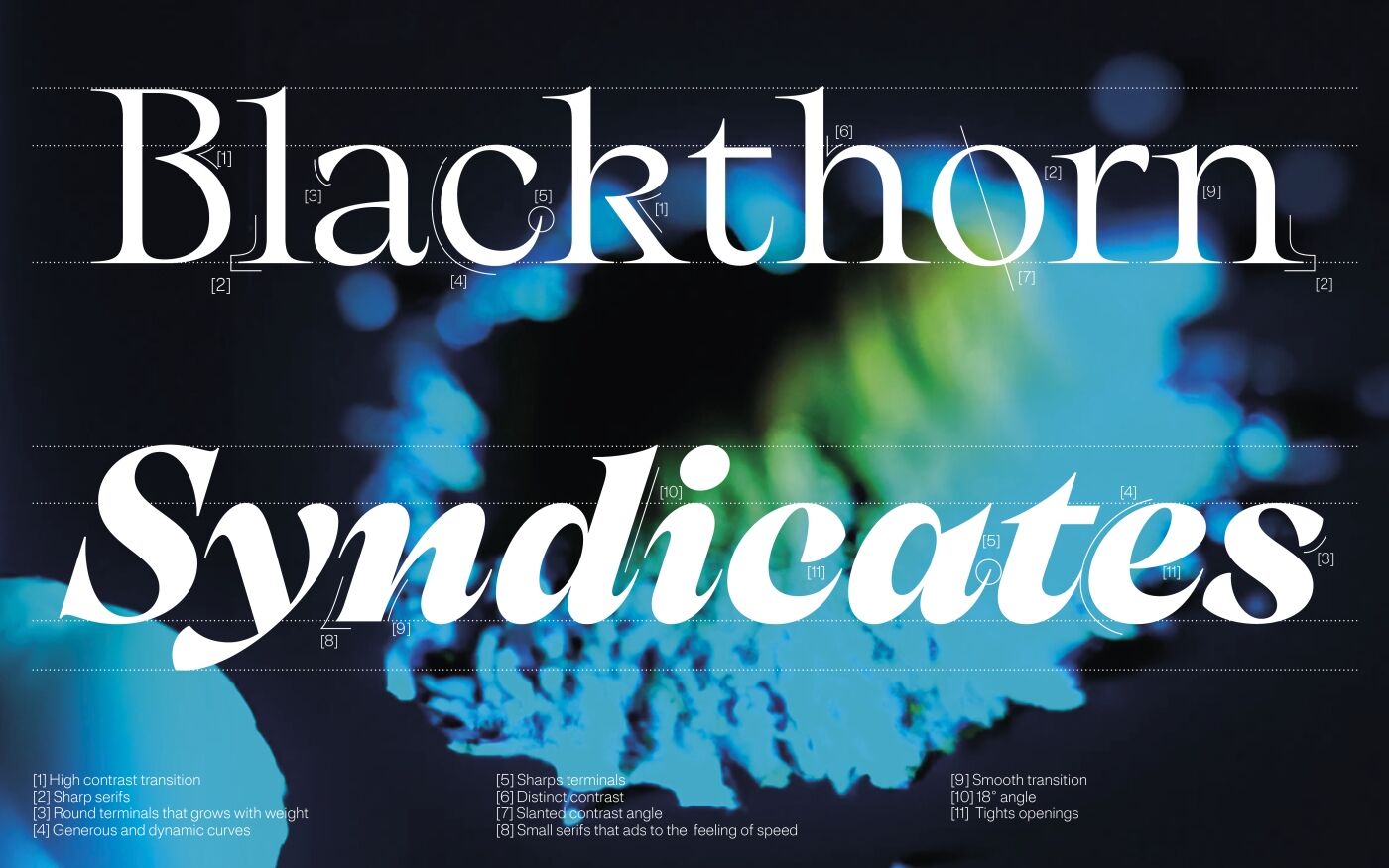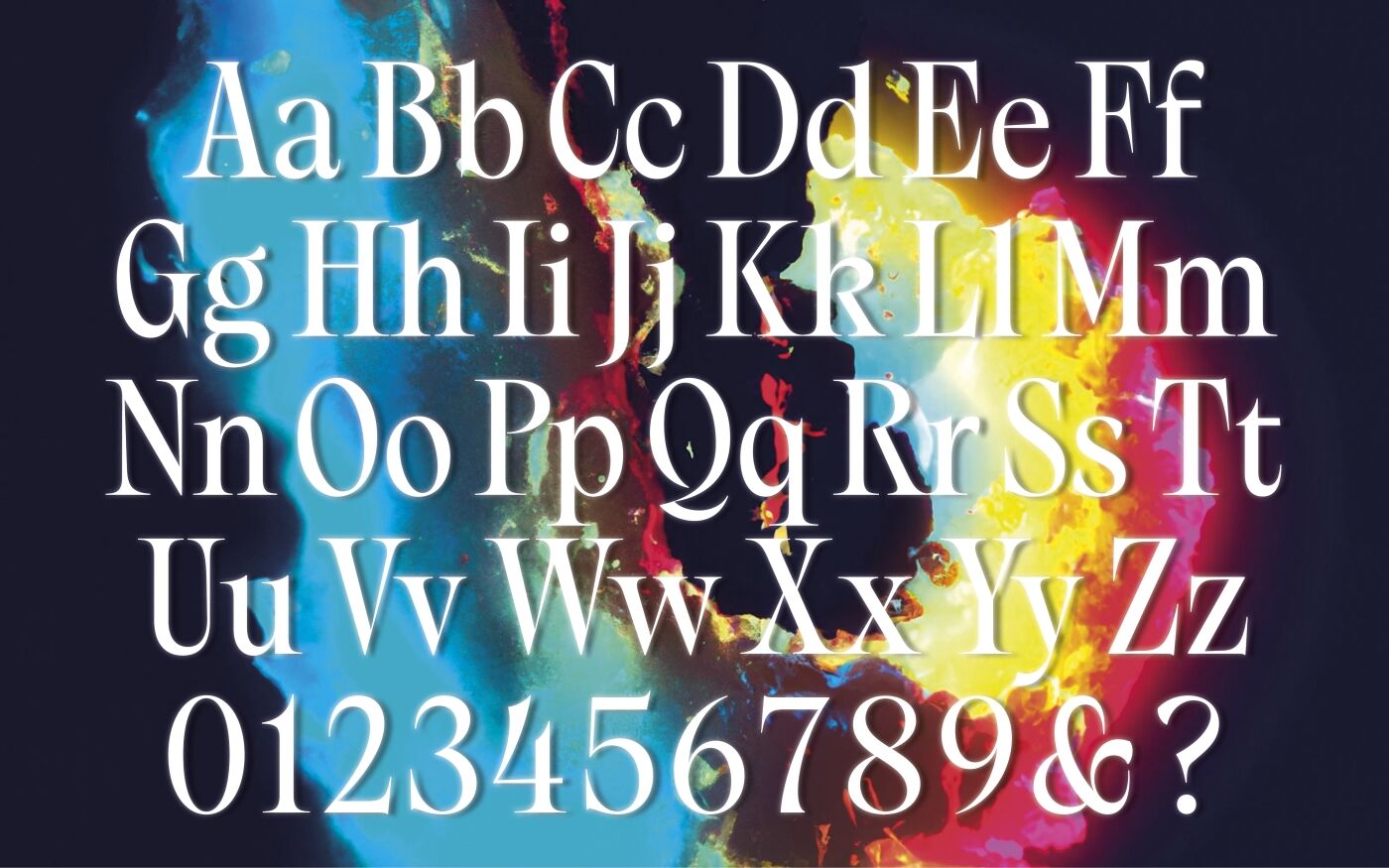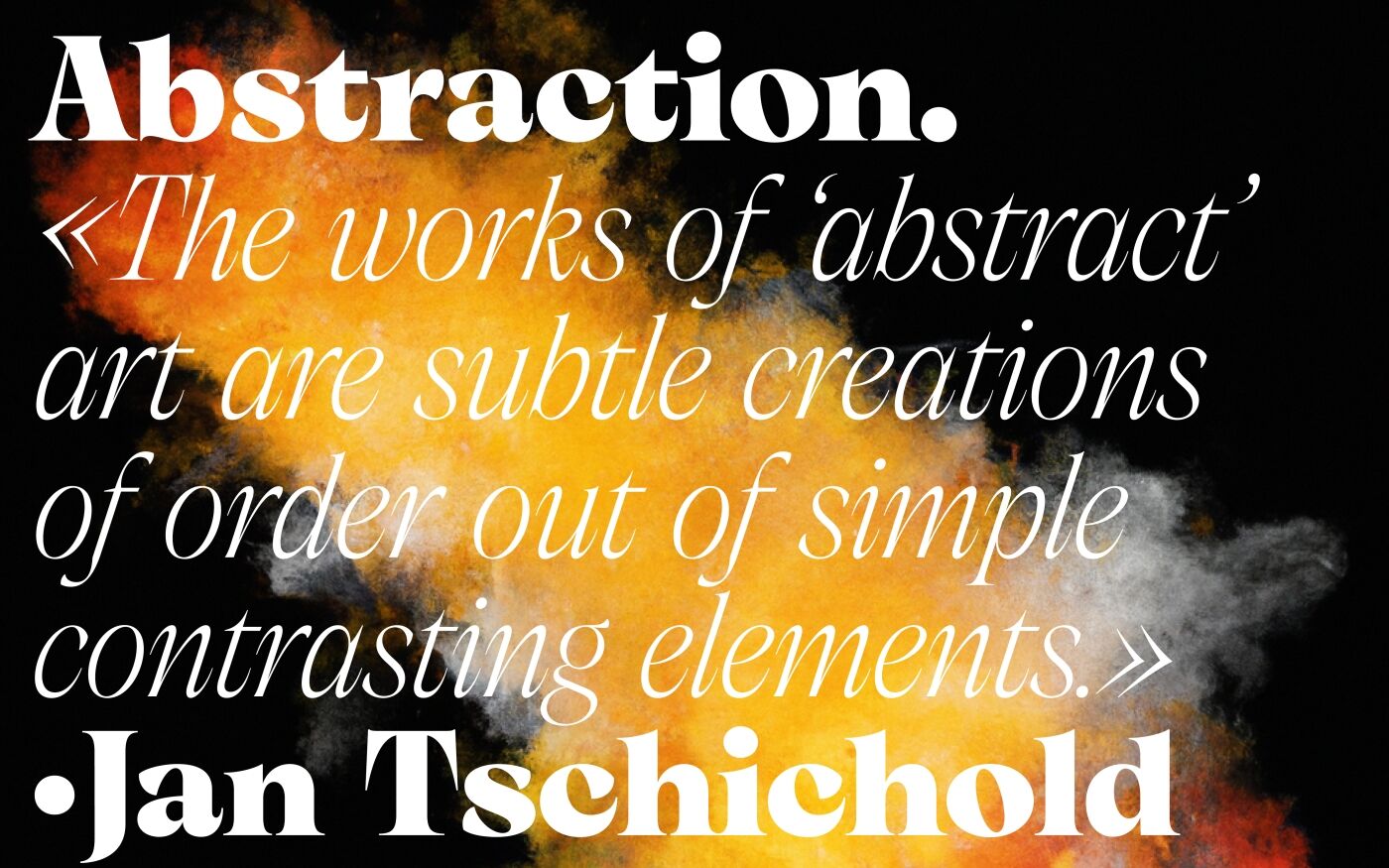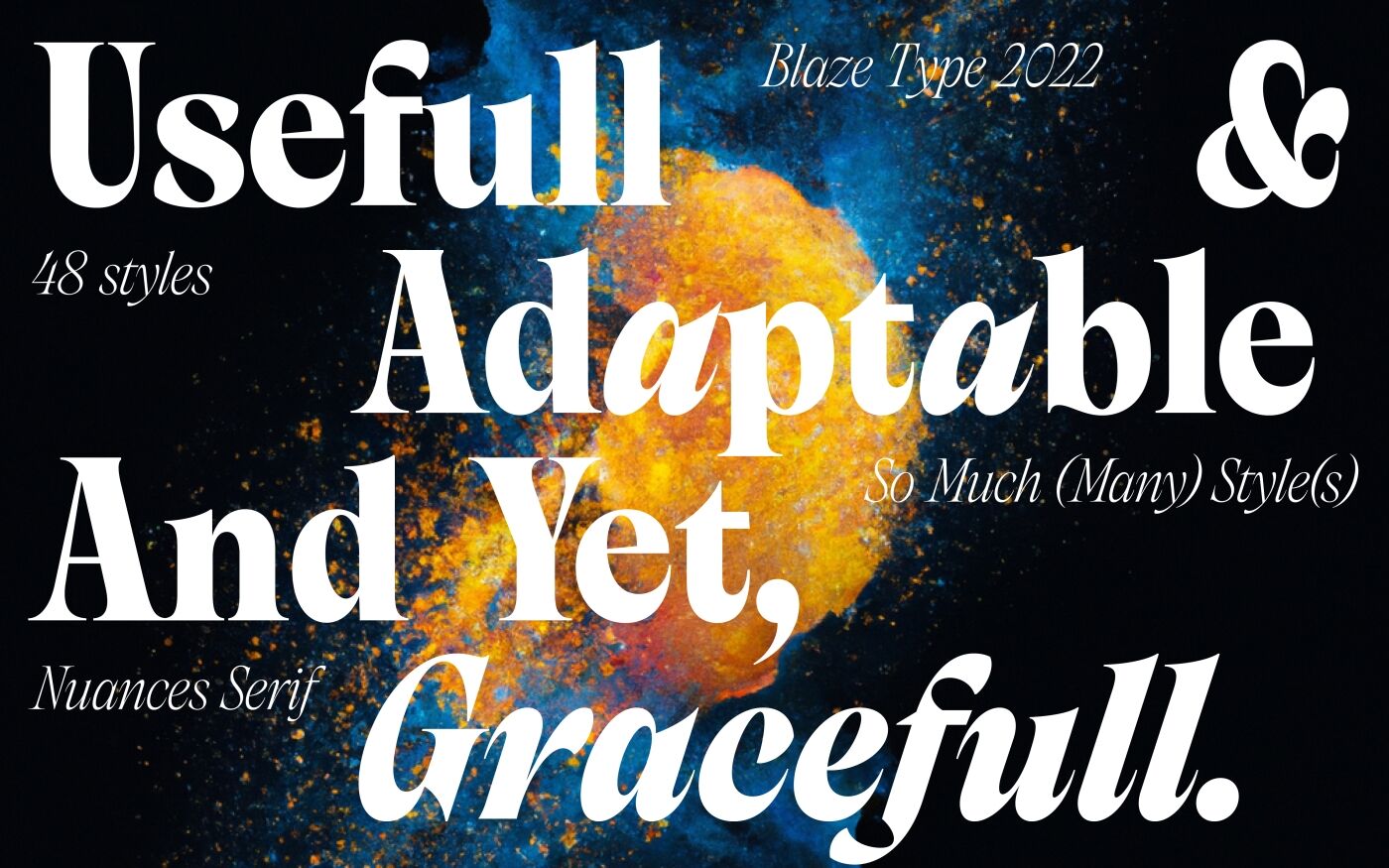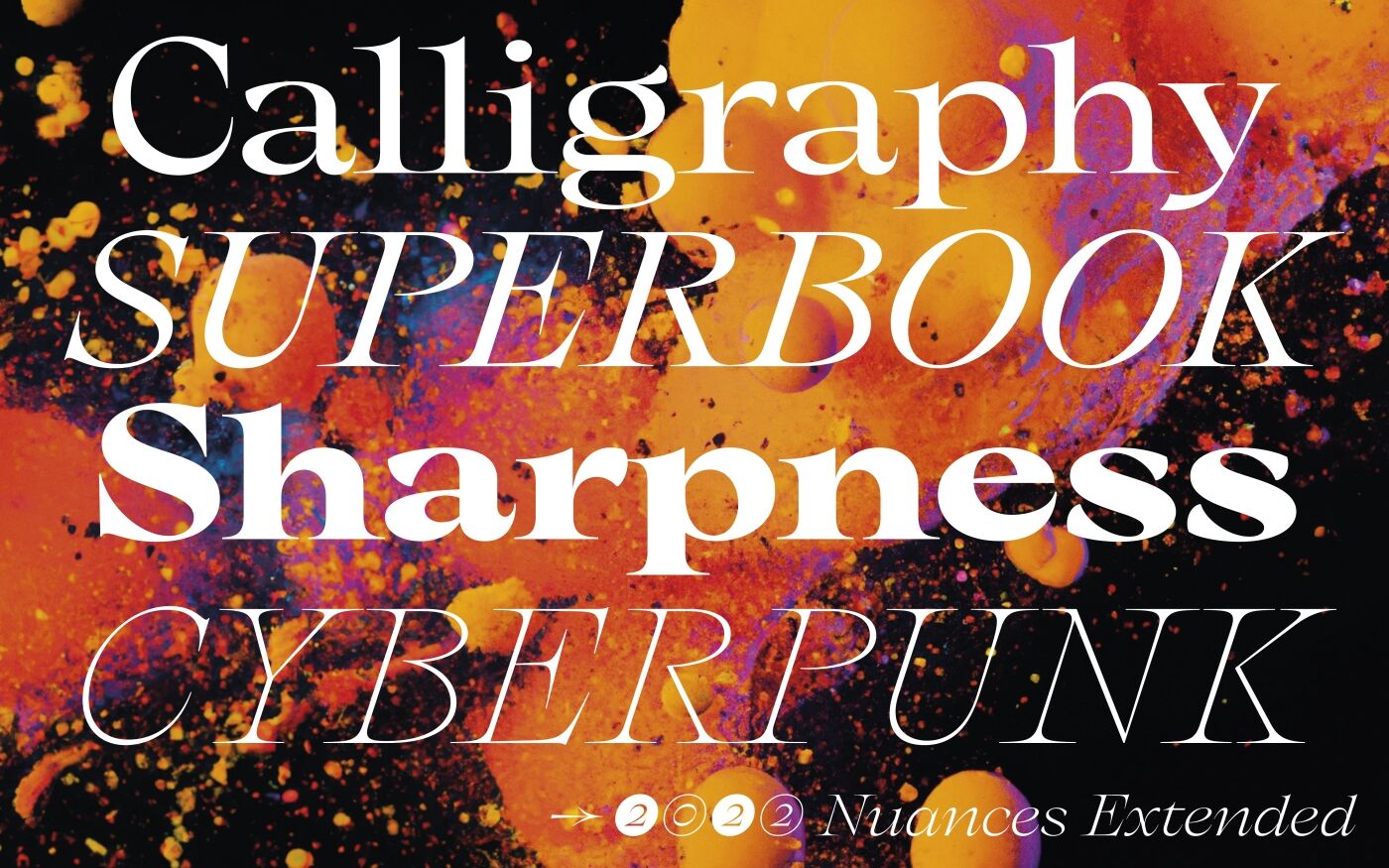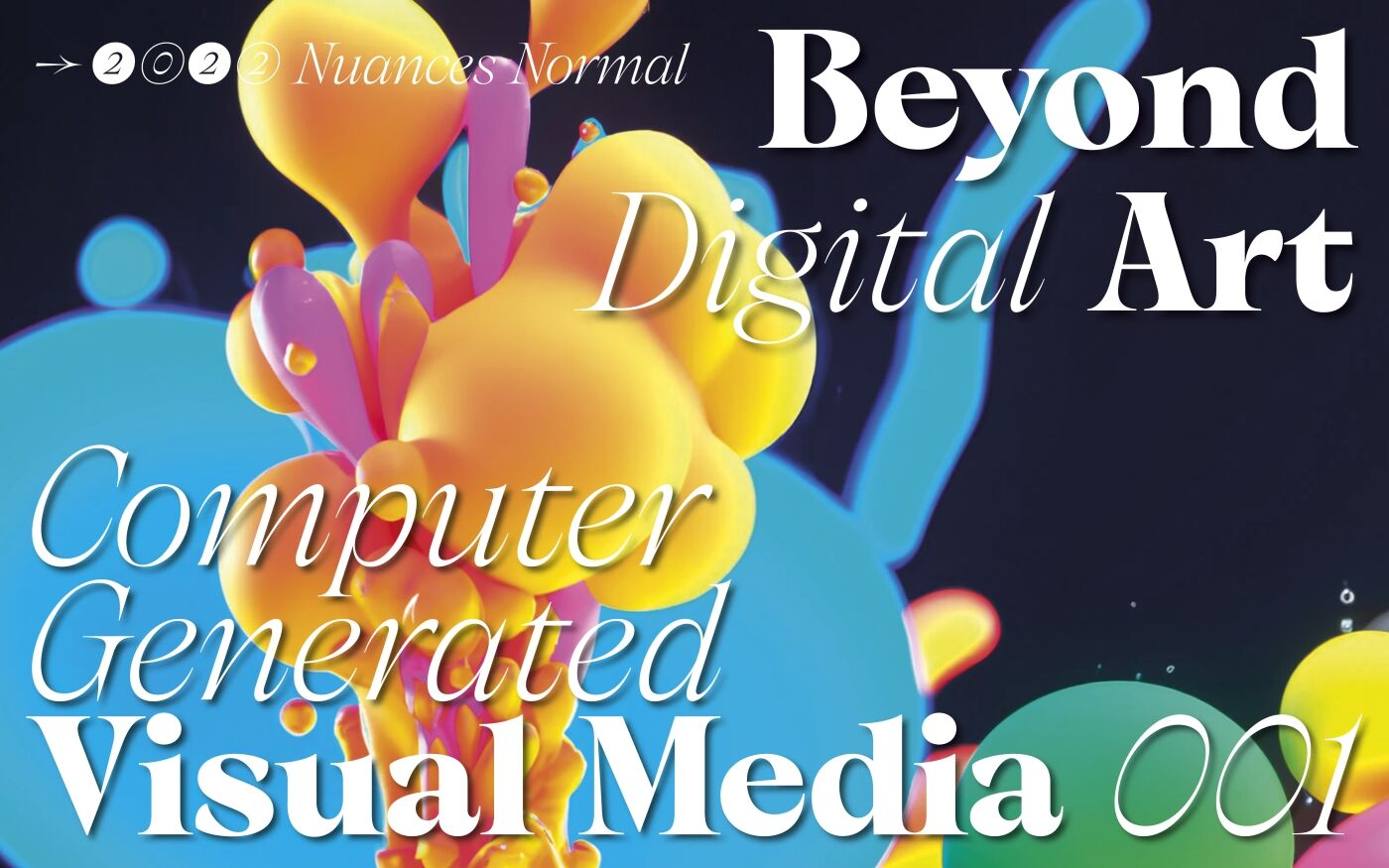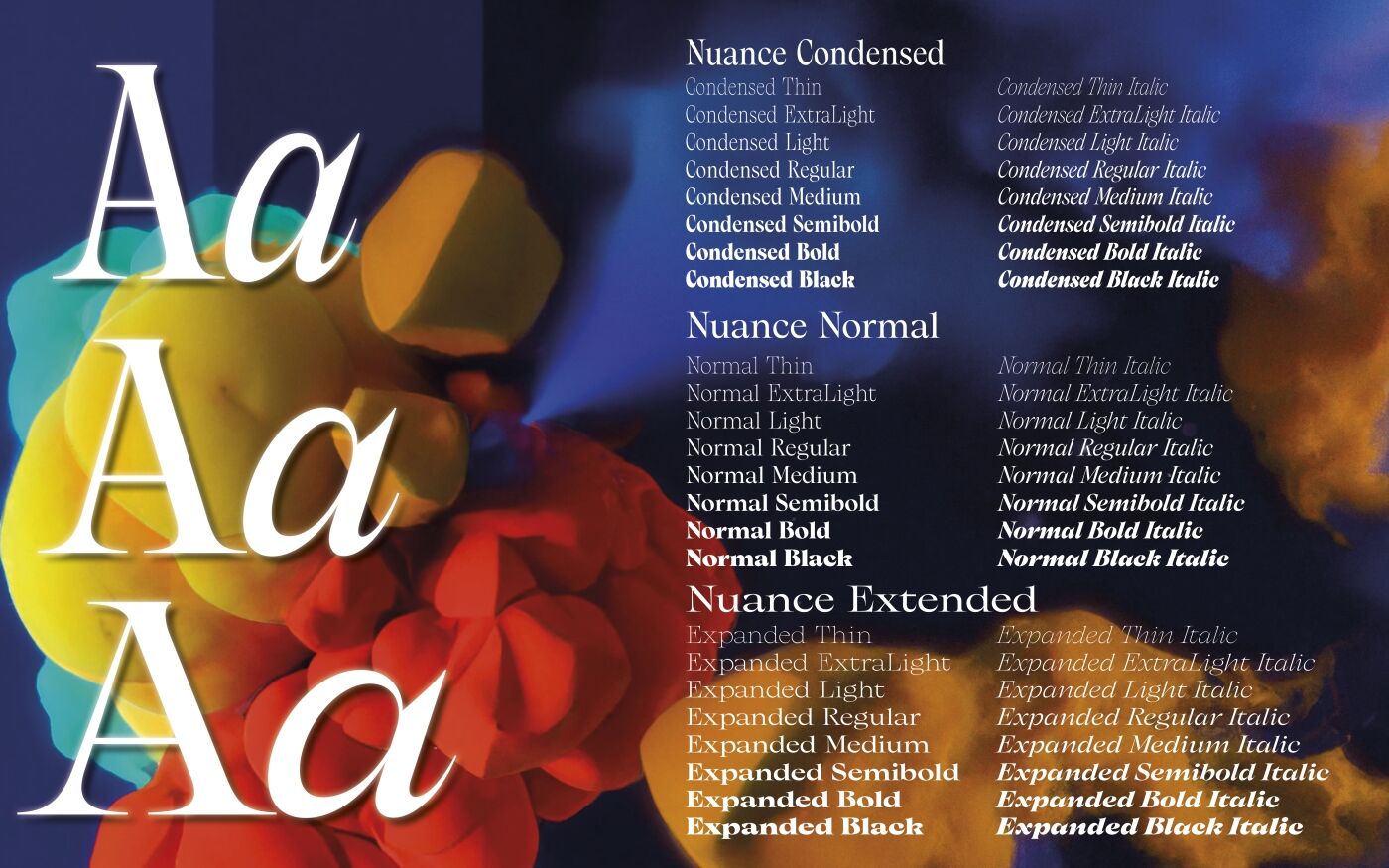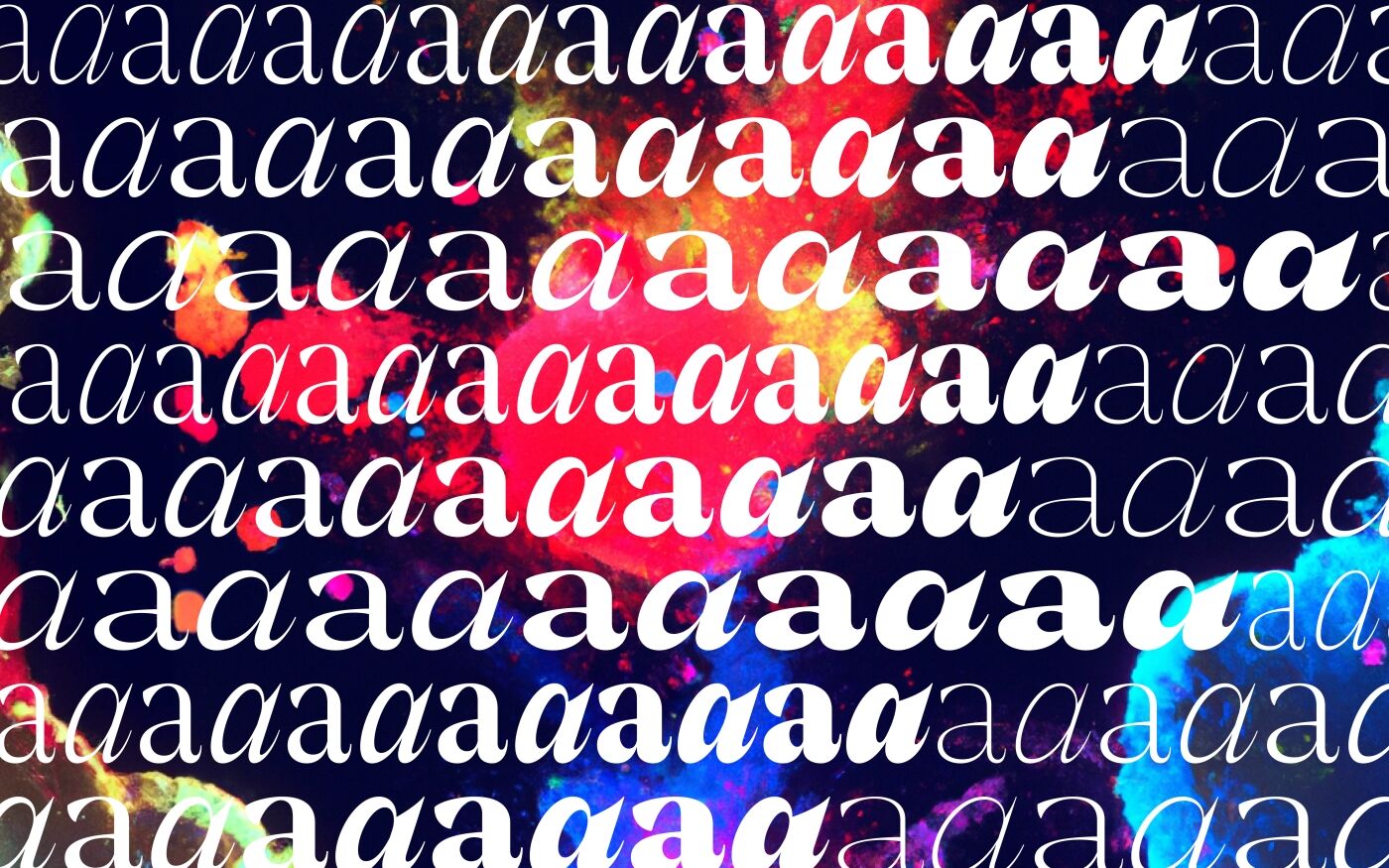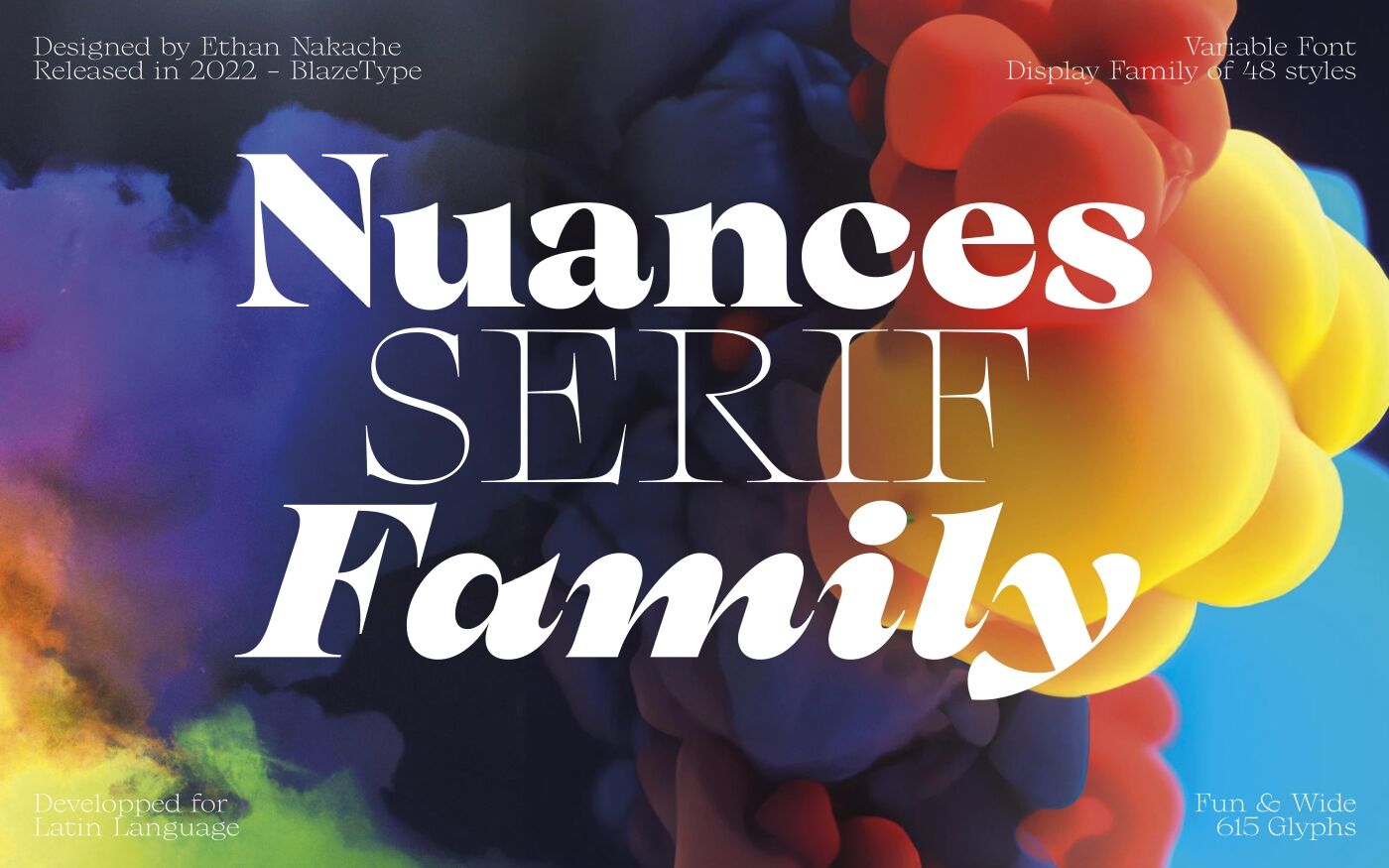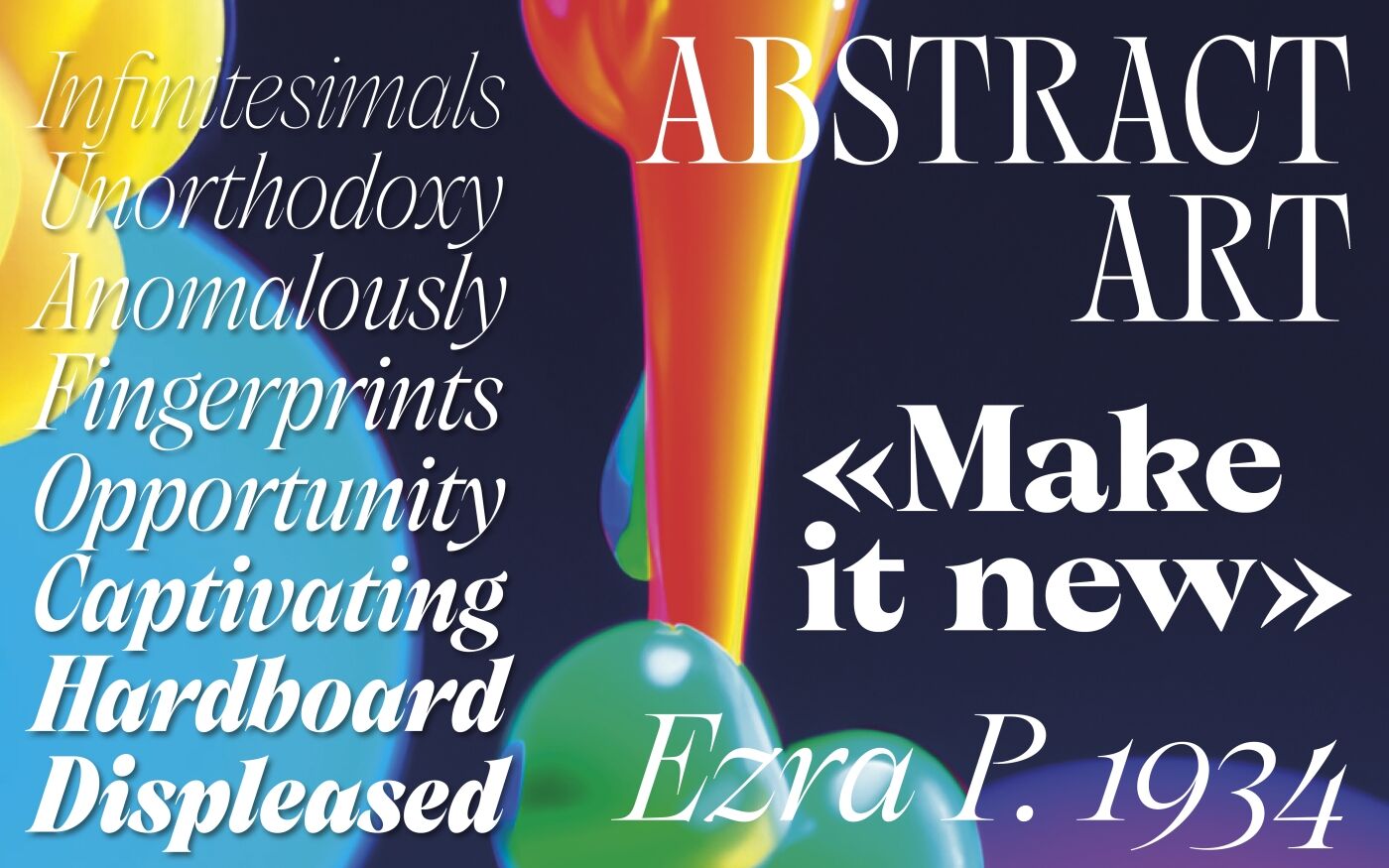
Nuances Typeface
Nuances Serif, distributed at Blaze Type is a very rich Serif family, with a highly expressive and resolutely modern design. Born from personal research on typographic design and aesthetic detail, Nuances Serif is a sharp serif font family with strong contrast and elegant curves. With a particular attention to the design of each glyph, this font family is meant to be used in large sizes. This expressive typeface is to be experienced, shown, read and seen through its elegant shapes, and its confident design.
Nuances Serif can also be appreciated for its playfulness due to its glyph diversity and large character set. Ranging from Condensed Thin to Extended Black, this font family is available in 3 Widths and 8 Weights with matching Italics. The wide range of its styles (48) offers infinite possibilities for text layouts combining width, weights, contrasts and styles to create original and sophisticated graphic compositions. A proper adaptative and expressive typeface family, it's elegant appearance would be as adequate to a luxury brand as to a poster for movies, or even a packaging for grocery stores’ items.
Ethan Nakache
Type Designer